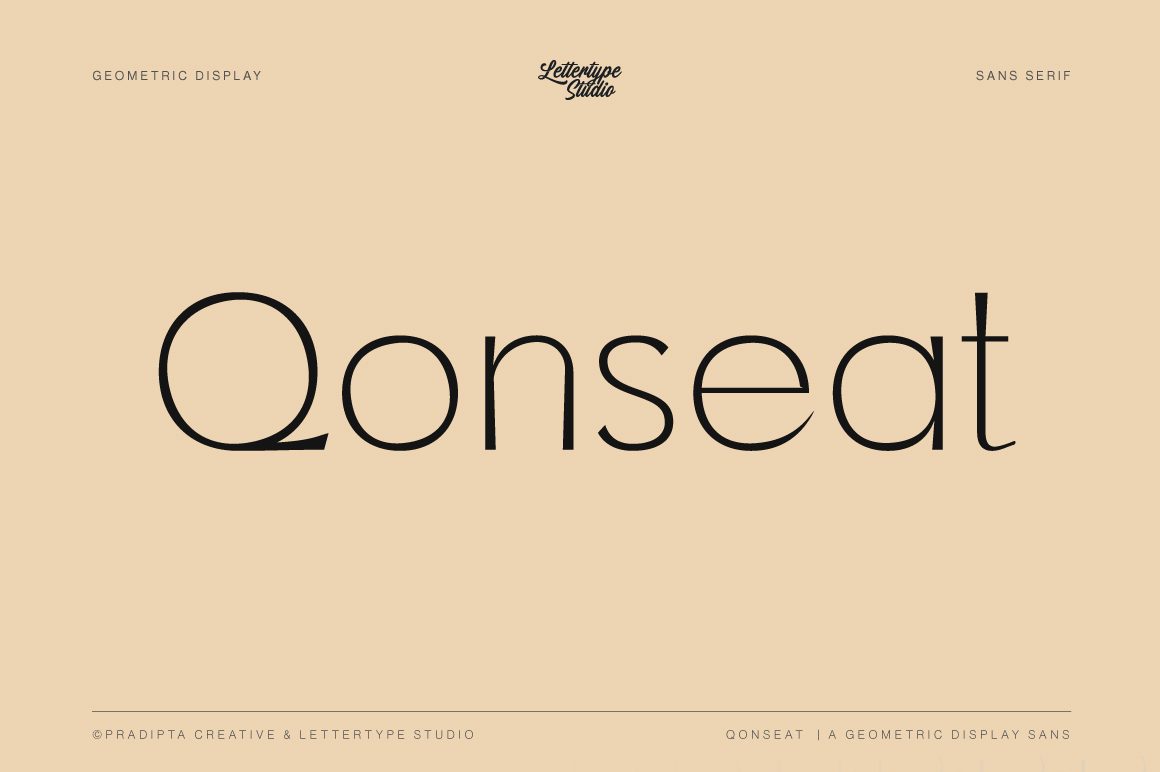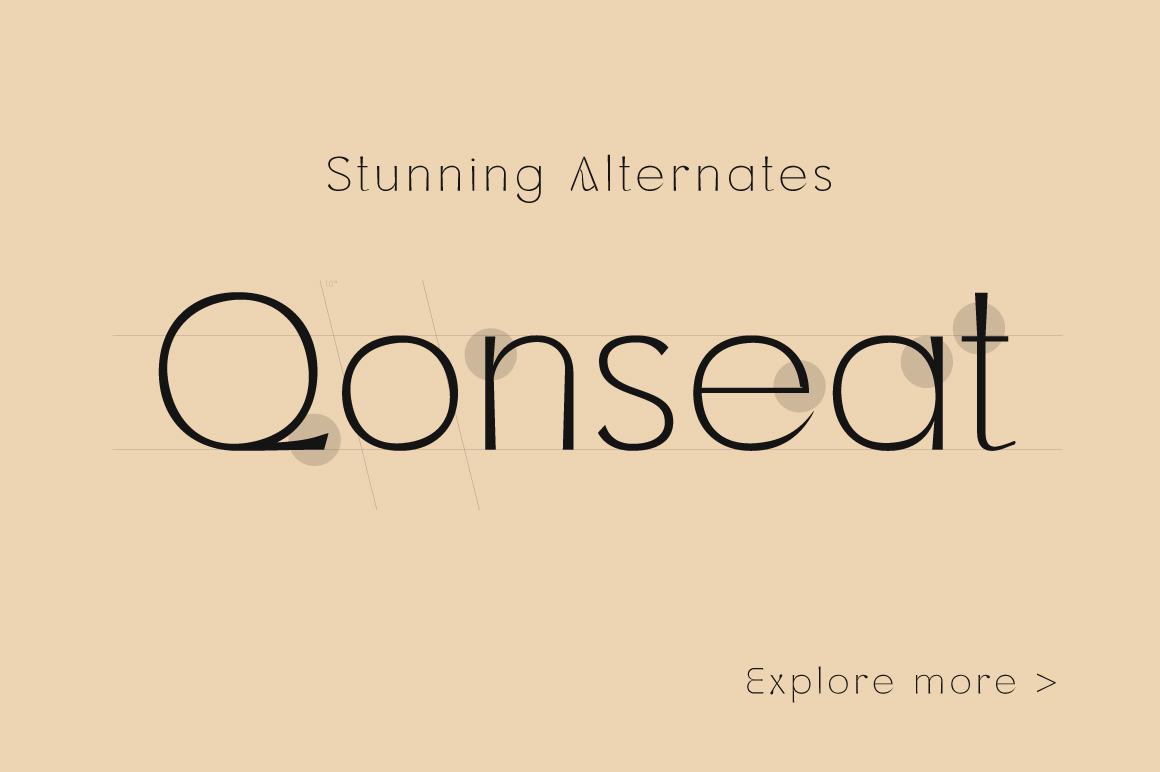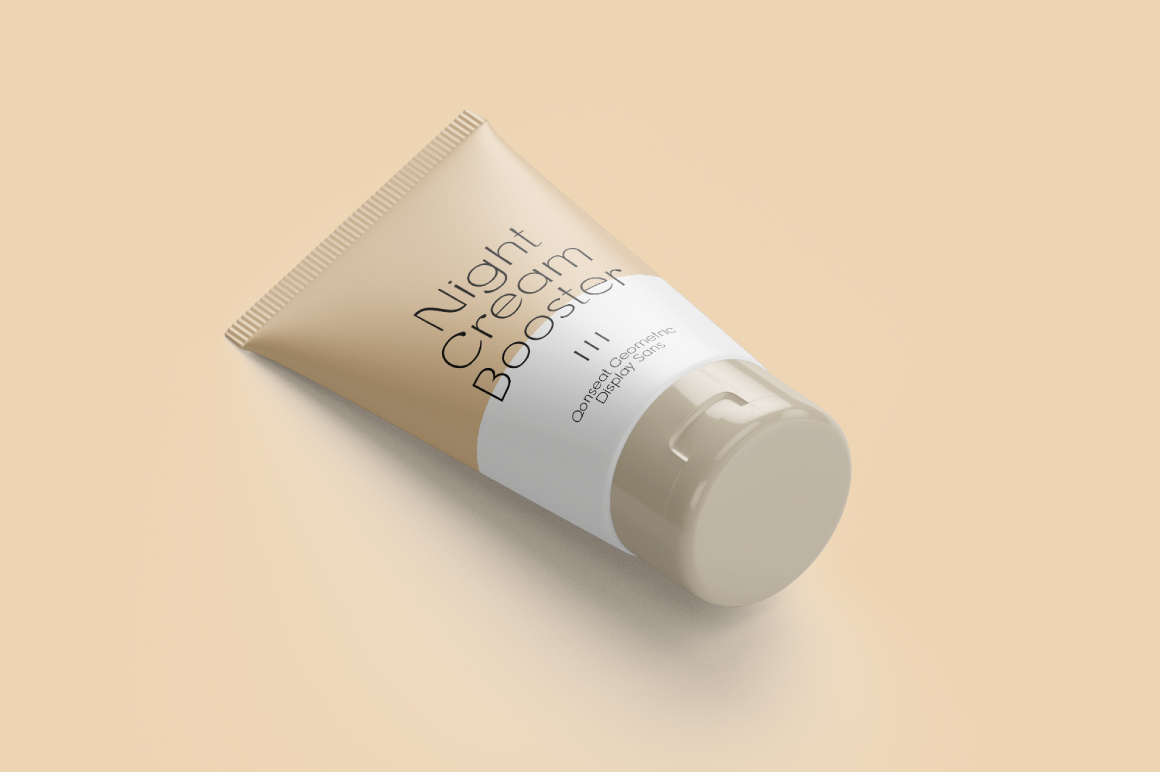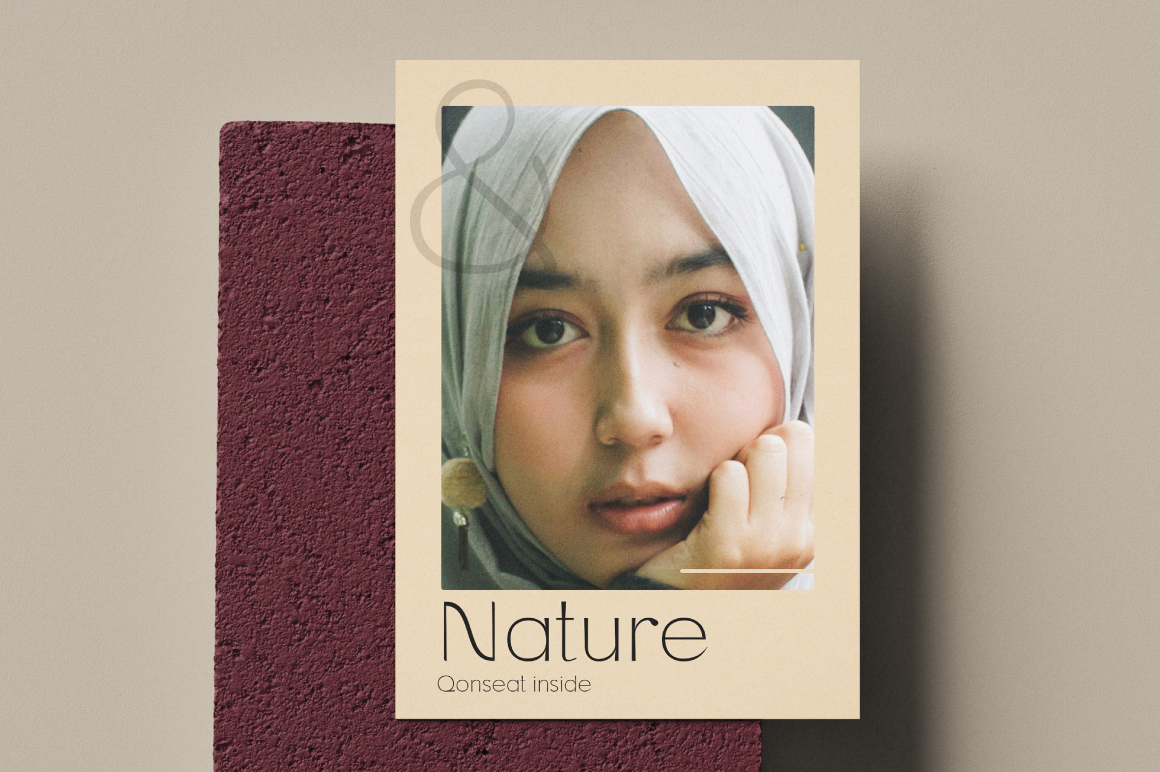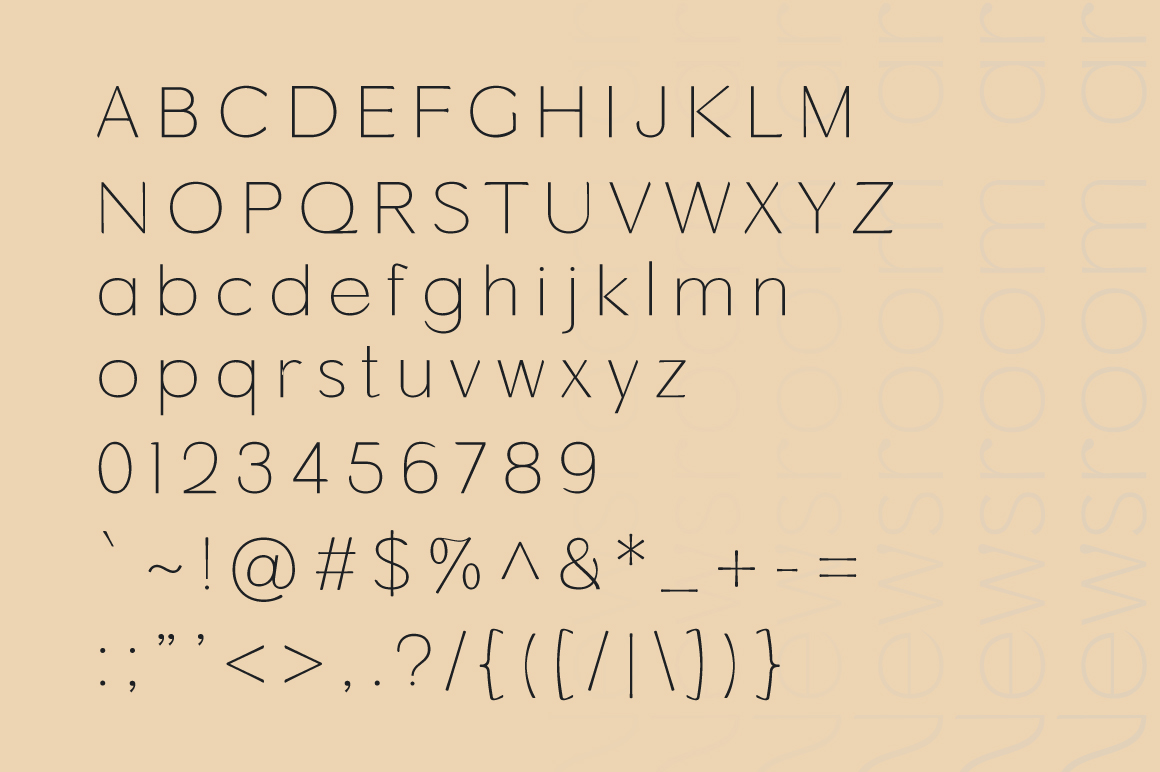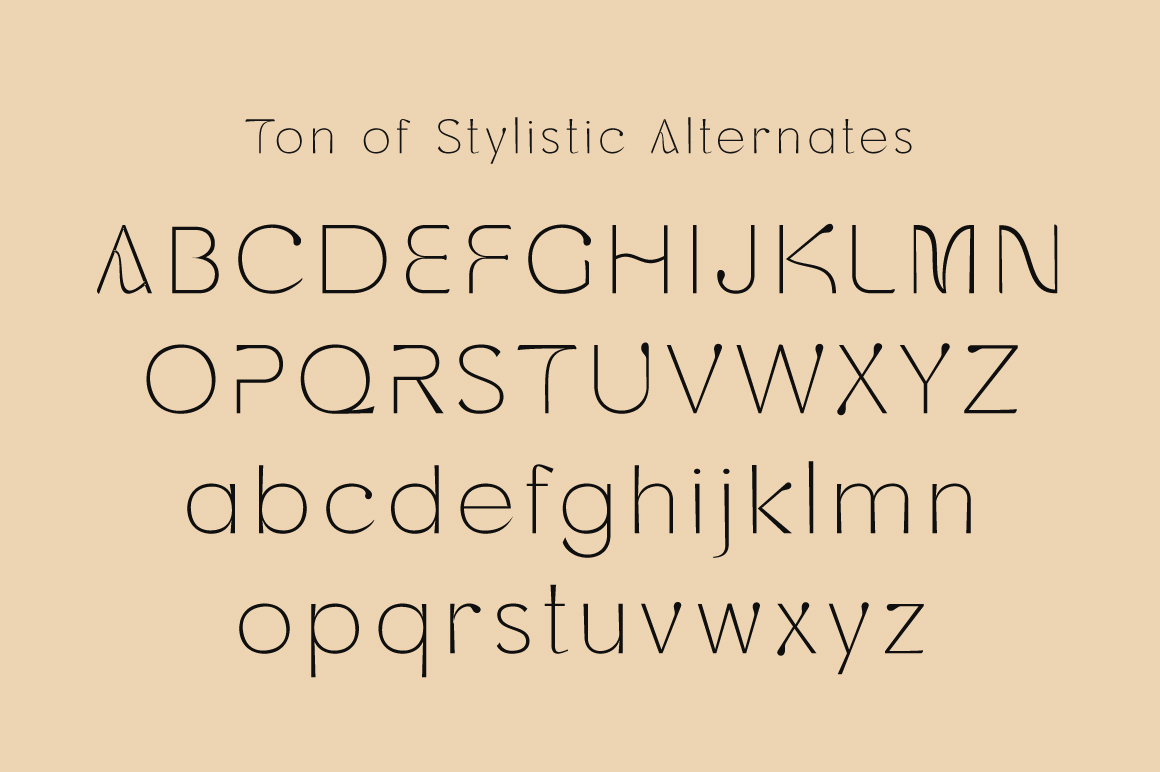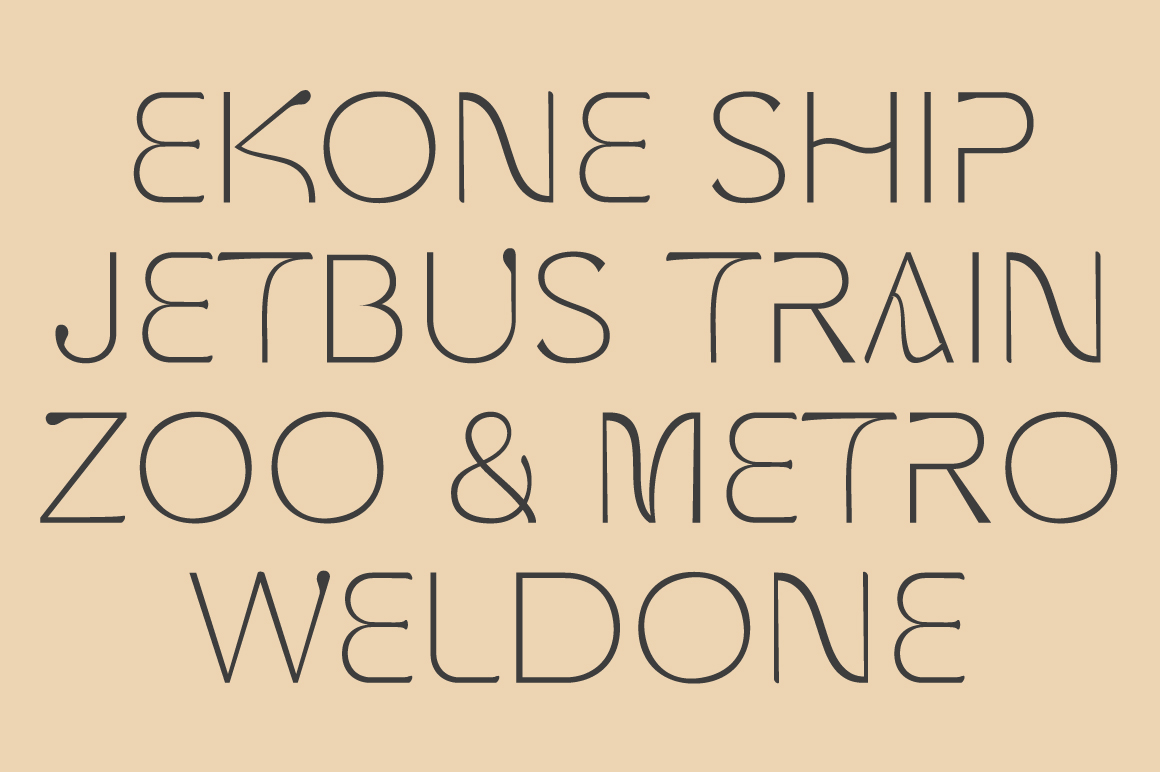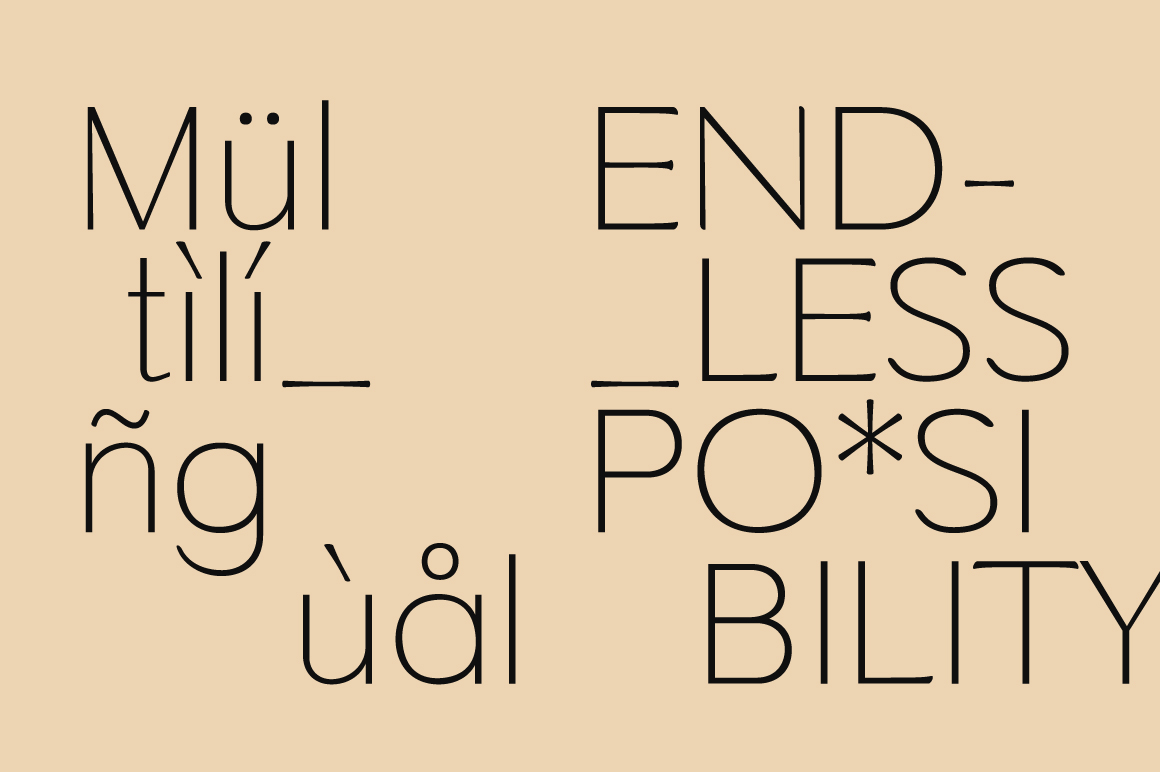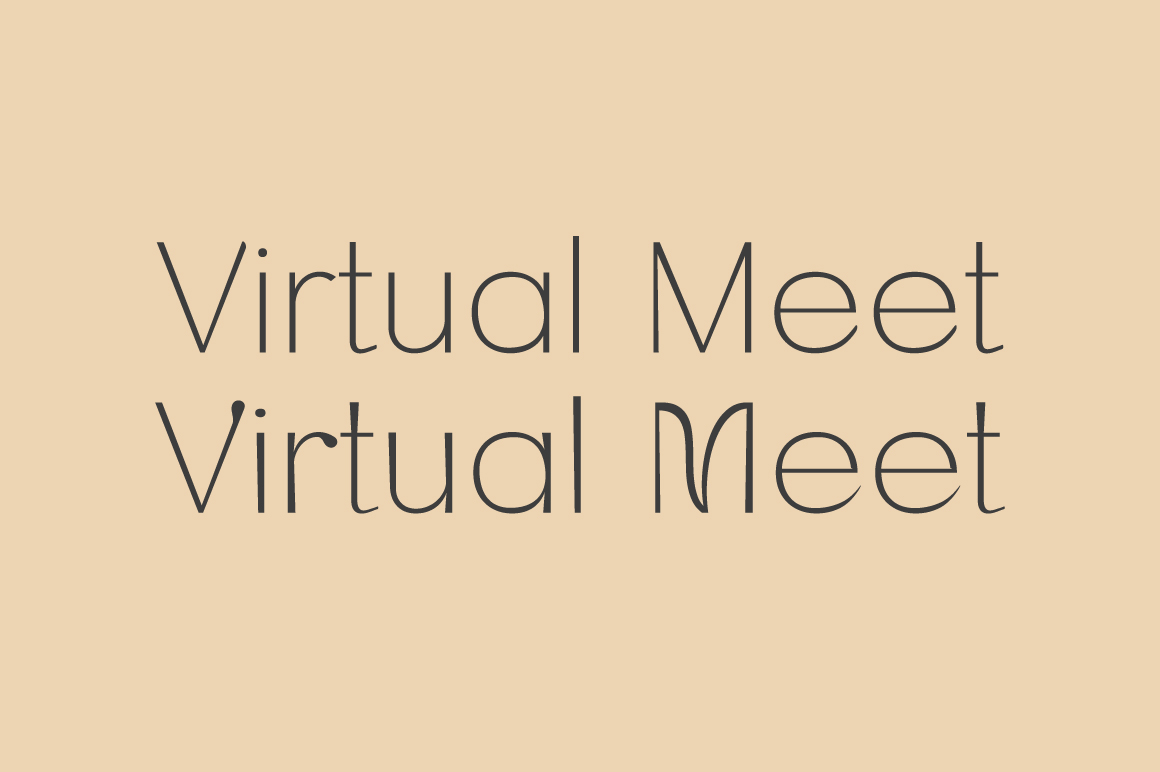
Qonseat
Qonseat is a geometric display sans serif font designed for bold, modern, and versatile use. Featuring over 50 alternate glyphs, it allows endless creative control for designers who want to create standout logos and unique branding identities.
Perfect for packaging, posters, headlines, and editorial layouts, Qonseat combines precision with modern simplicity. Its clean geometry and balanced structure make it an ideal choice for both digital and print projects that demand a sleek, professional aesthetic.
• Lowercase & Uppercase
• Numerals & Punctuation
• Alternates & Ligature
• Multilingual Support
• Creative logos, modern headlines & statement typography
• Social media graphics, branding kits & digital campaigns
• Product packaging, labels & advertising layouts
• Invitations, posters, and editorial compositions
• Trendy lifestyle or fashion-based design projects